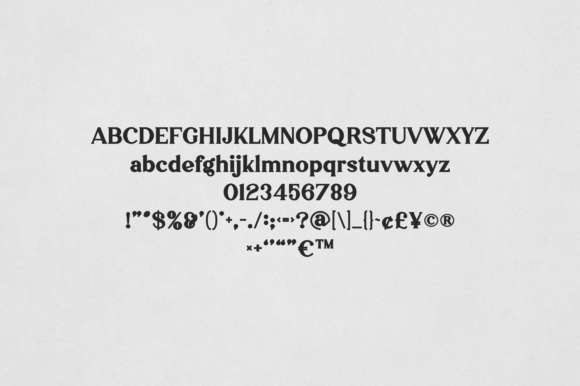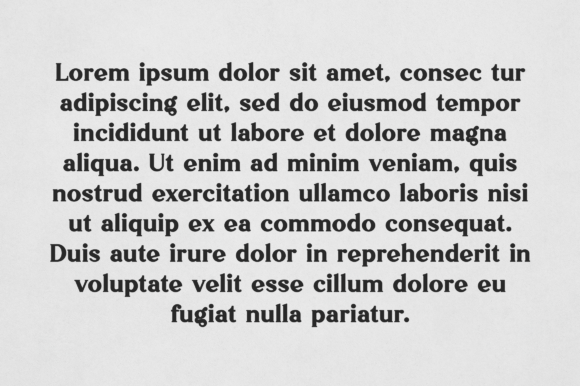
The Designer’s Delight: Getting to Know the Elegant Gillian Font
I’ll never forget the time I was working on a branding project for a luxury home goods client. I had the perfect color palette, the ideal imagery, but I was stuck on finding the right font. The project required something elegant, versatile, and unique – and I just couldn’t seem to find it. That was until I stumbled upon the stunning Gillian font. ✨
From that moment on, Gillian became my go-to font for any project that required a touch of sophistication and style. In this article, I’ll share with you why I love Gillian, its features, and how to make the most of it in your designs.
The Good: ✨
- ✅ Elegant and sophisticated design
- ✅ Highly versatile for various design projects
- ✅ Supports OpenType features and glyphs
- ✅ Perfect for branding, logos, headlines, and more
The Not-So-Good: 🤔
- ⚠️ Limited availability of certain characters
- ⚠️ May require adjustments for optimal kerning
While Gillian is an exceptional font, it’s essential to be aware of its limitations to ensure a smooth design experience.
The Story Behind Gillian: Designer Inspiration
Gillian was designed with the intention of creating a font that exudes elegance and sophistication. Inspired by classic typography and modern design trends, Gillian’s creator aimed to craft a font that would be both versatile and unique. The result is a font that seamlessly blends traditional and contemporary elements, making it perfect for a wide range of design projects.
| Font Name | Gillian Font |
| Author | vladfedotovv |
Q: What type of projects is Gillian best suited for?
A: Gillian is perfect for branding projects, home-ware designs, product packaging, magazine headers, and more.
Q: Does Gillian support OpenType features?
A: Yes, Gillian supports OpenType features, including glyphs and stylistic alternates.
Q: Can I use Gillian in digital and print designs?
A: Absolutely! Gillian is designed to be versatile and works well in both digital and print designs.